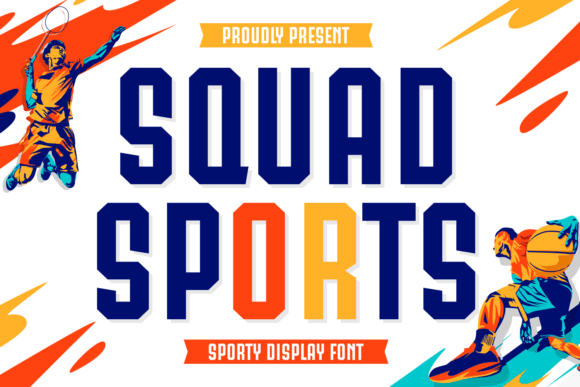
Squad Sports Font: Elevate Your Sporty Designs with a Winning Choice
In the world of sports, style and fashion play a significant role in creating a lasting impression. Whether it’s a jersey, gym advertisement, or varsity project, the right font can make all the difference. Introducing “Squad Sports”, a display font that breathes life into your sporty designs with its athletic vibe, varsity, and jersey font influences.
The Perfect Font for Sporty Designs
Squad Sports font is a game-changer for designers looking to create bold and stylish sporty designs. Its unique blend of varsity and jersey font influences makes it an ideal choice for projects that require a strong athletic presence. The font’s stylish and fashion-forward design ensures that your projects stand out from the crowd and leave a lasting impression.
One of the key features of Squad Sports font is its all-capital letter design. This instantly commands attention and makes it perfect for headlines, titles, and other applications where you want to make a statement. The font’s bold and athletic design ensures that your message is conveyed with confidence and style.
Key Features of Squad Sports Font
- Athletic Vibe: Squad Sports font is designed to evoke the spirit of sports and athleticism. Its bold and stylish design makes it perfect for creating sporty designs that demand attention.
- Varsity and Jersey Font Influences: The font’s unique blend of varsity and jersey font influences makes it an ideal choice for projects that require a strong athletic presence.
- All-Capital Letters: The font’s all-capital letter design ensures that your message is conveyed with confidence and style.
- Stylish and Fashion-Forward: Squad Sports font is designed to be stylish and fashion-forward, making it perfect for designers who want to create sporty designs that stand out from the crowd.
Use Cases for Squad Sports Font
Squad Sports font is a versatile font that can be used in a variety of applications. Here are some use cases where the font excels:
- Jerseys: The font’s varsity and jersey font influences make it an ideal choice for designing jerseys for sports teams.
- Gym Advertisements: Squad Sports font is perfect for creating bold and stylish gym advertisements that demand attention.
- Varsity Projects: The font’s athletic vibe and stylish design make it an ideal choice for varsity projects that require a strong athletic presence.
- Sporty Logos: Squad Sports font can be used to create sporty logos that are bold, stylish, and memorable.
Why Choose Squad Sports Font?
Squad Sports font is a winning choice for designers looking to create sporty designs that demand attention. Here are some reasons why you should choose Squad Sports font:
- Unique Design: The font’s unique blend of varsity and jersey font influences makes it a standout choice for sporty designs.
- Attention-Grabbing: The font’s all-capital letter design and bold style ensure that your message is conveyed with confidence and style.
- Versatile: Squad Sports font can be used in a variety of applications, from jerseys to gym advertisements and varsity projects.
- Fashion-Forward: The font’s stylish and fashion-forward design ensures that your projects stand out from the crowd and leave a lasting impression.
In conclusion, Squad Sports font is a game-changer for designers looking to create bold and stylish sporty designs. Its unique blend of varsity and jersey font influences, athletic vibe, and stylish design make it an ideal choice for projects that require a strong athletic presence. Whether you’re designing jerseys, gym advertisements, or varsity projects, Squad Sports font is a winning choice that is sure to leave a lasting impression.
- What is Squad Sports font? Squad Sports font is a display font designed for sporty designs. It features a unique blend of varsity and jersey font influences and an athletic vibe.
- What are the key features of Squad Sports font? The font’s key features include its athletic vibe, varsity and jersey font influences, all-capital letter design, and stylish and fashion-forward design.
- What are some use cases for Squad Sports font? Squad Sports font can be used in a variety of applications, including jerseys, gym advertisements, varsity projects, and sporty logos.
- Why should I choose Squad Sports font? You should choose Squad Sports font for its unique design, attention-grabbing style, versatility, and fashion-forward design.